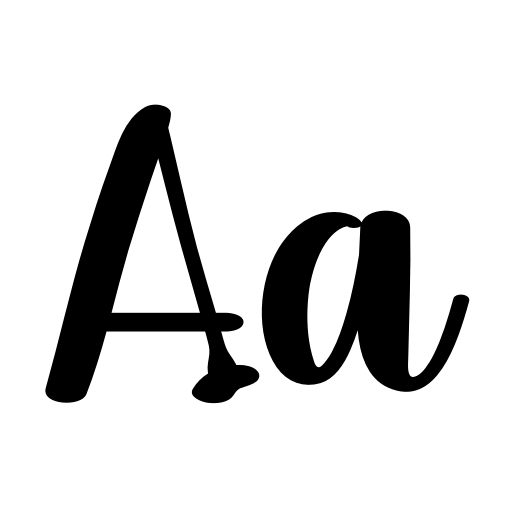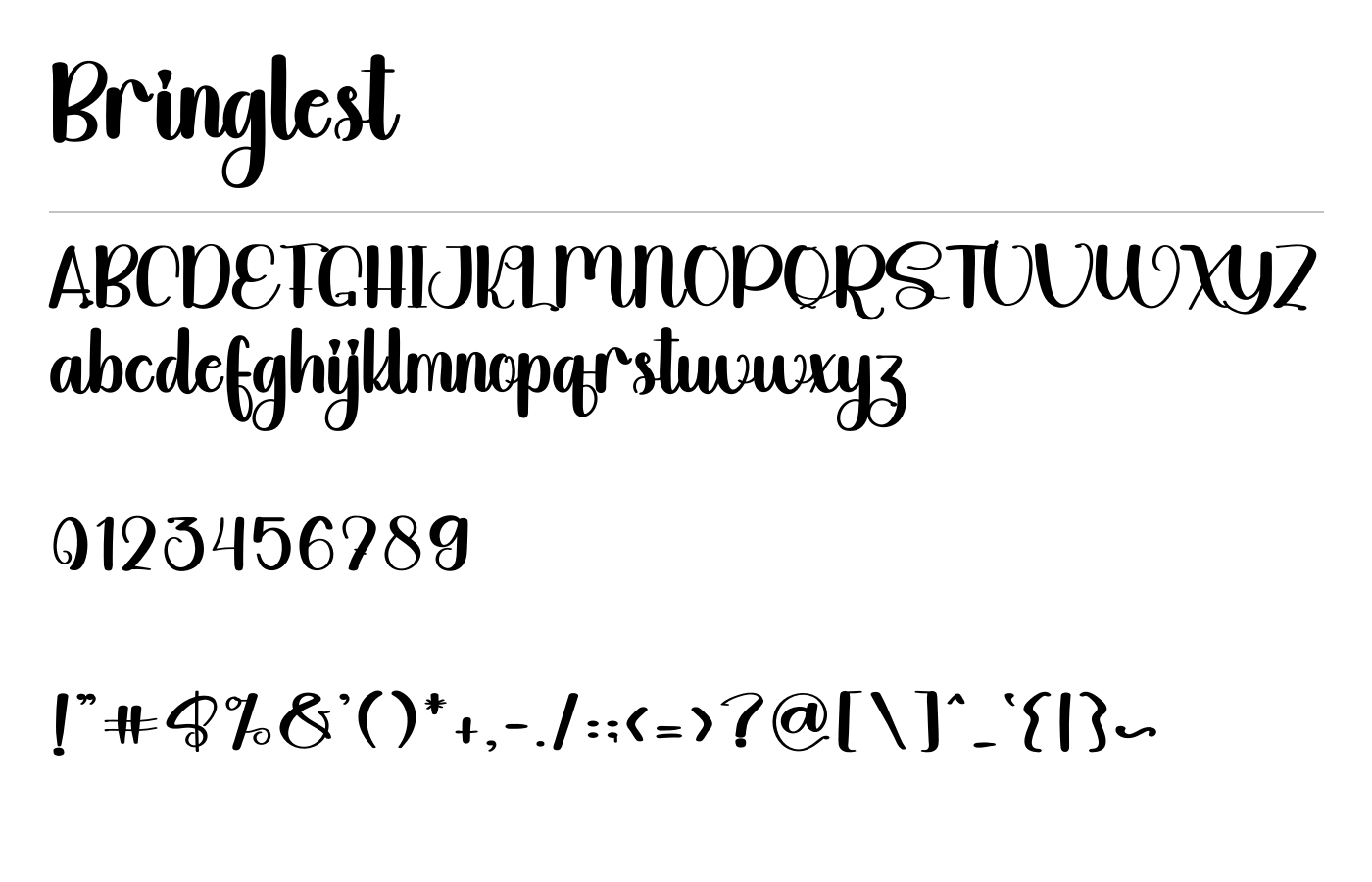
Bringlest is a lively and playful script font with a bold, rounded brush style and unique swirly details that give it a charming, handcrafted feel. Its strong, smooth strokes combined with whimsical uppercase flourishes make it perfect for creative branding, invitations, or fun headlines where personality and warmth are key. This font works best in designs that want to convey friendliness and creativity with a touch of elegance.
Bringlest Font
About Bringlest Font